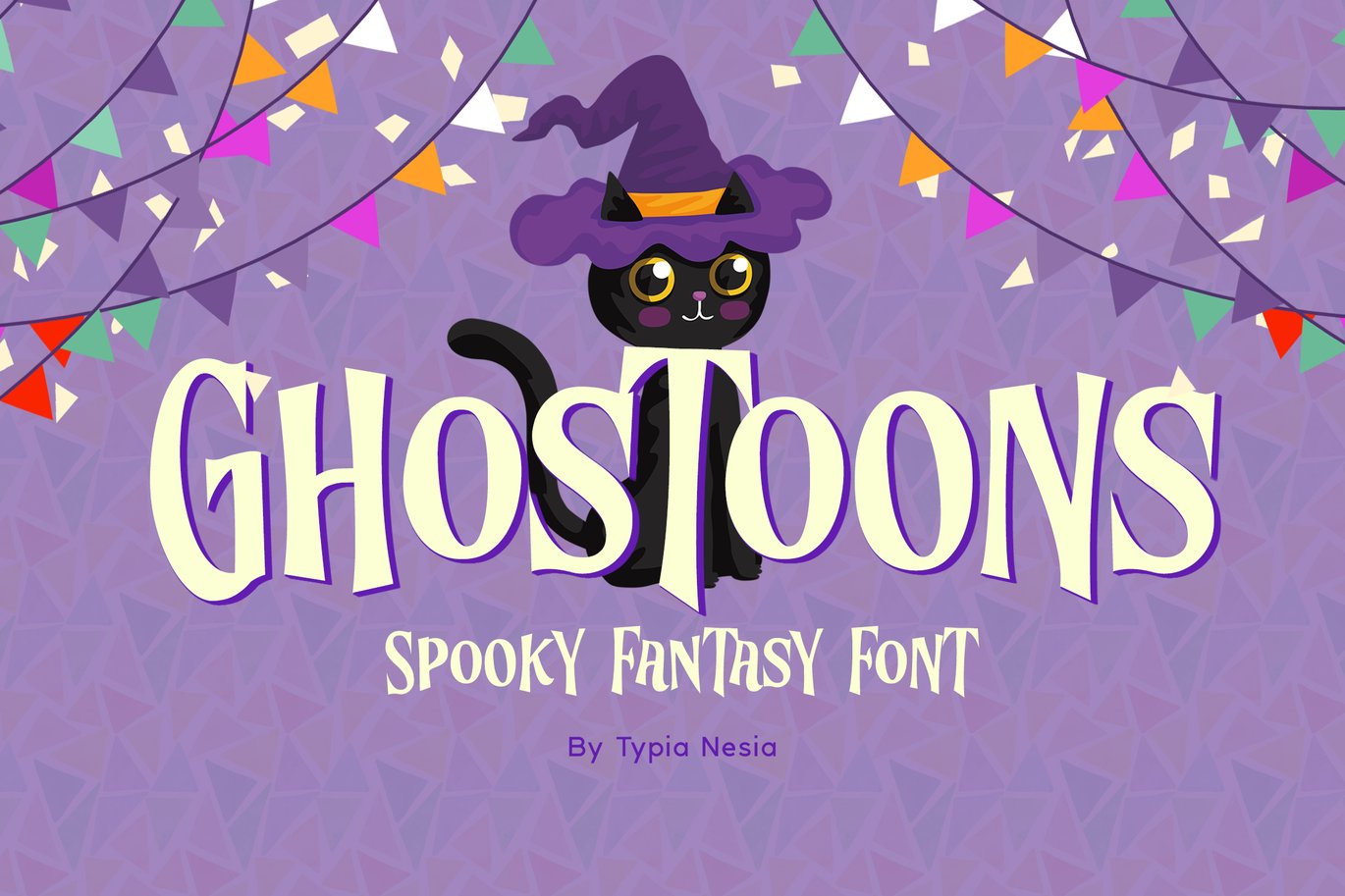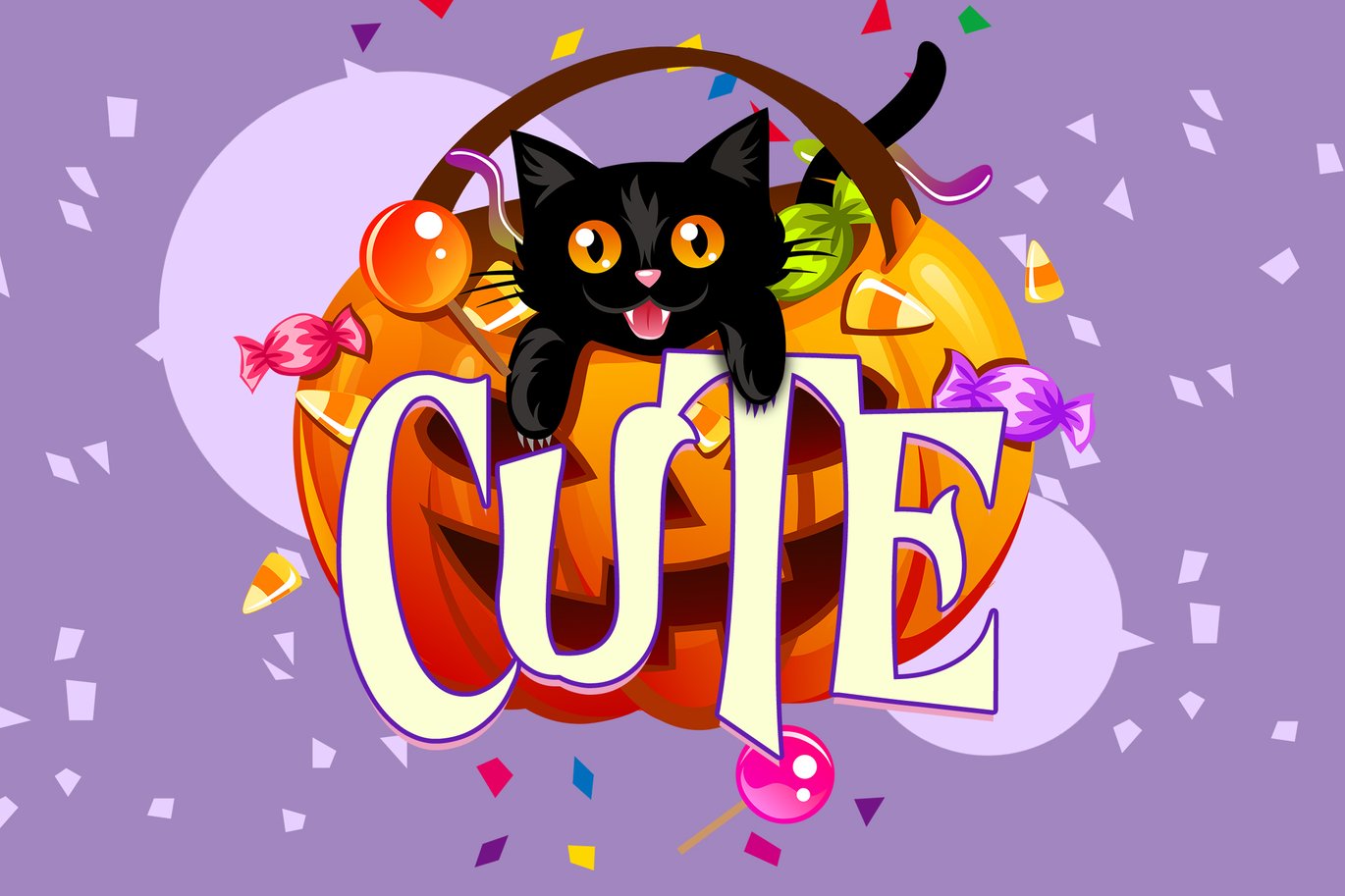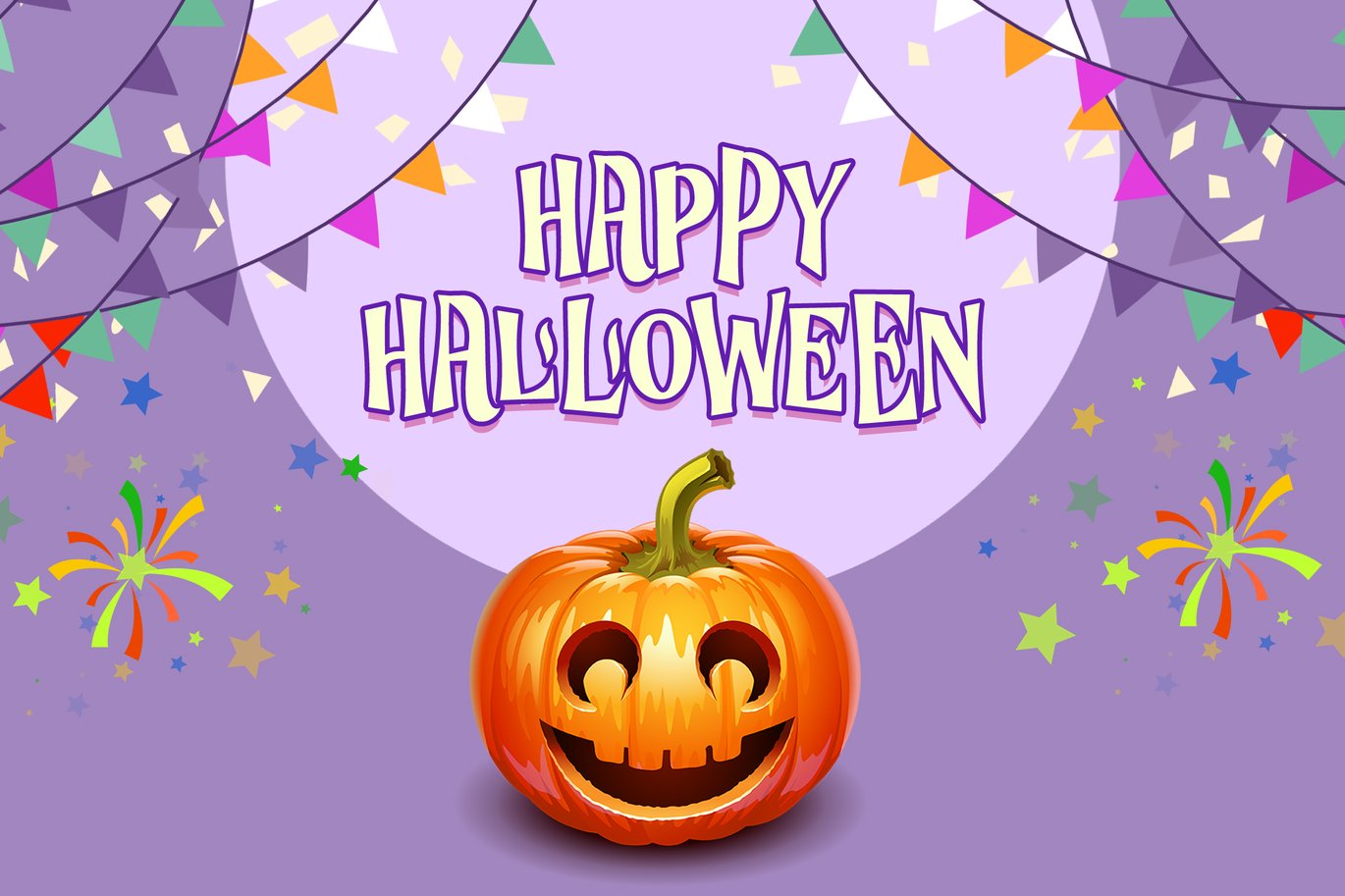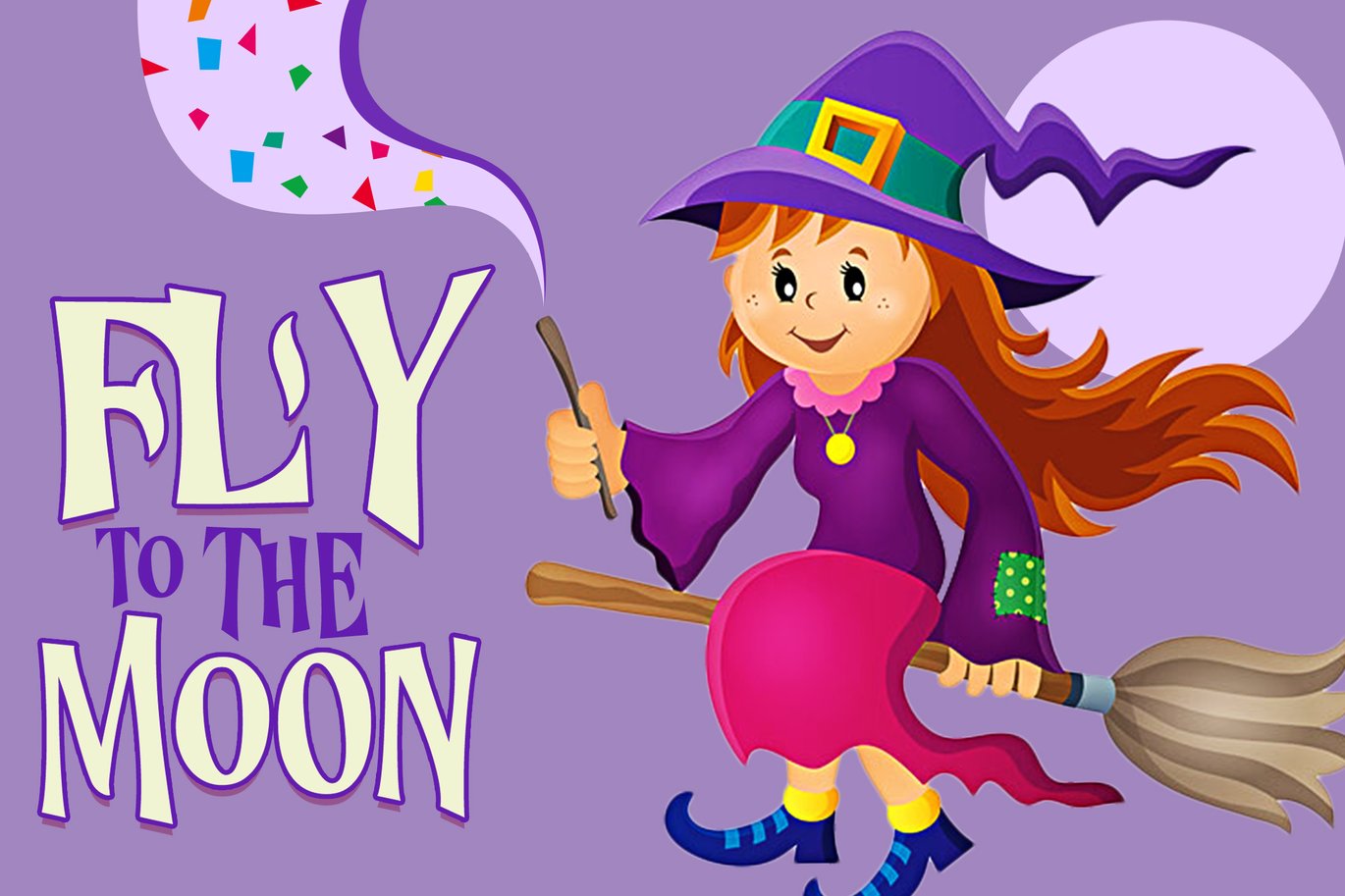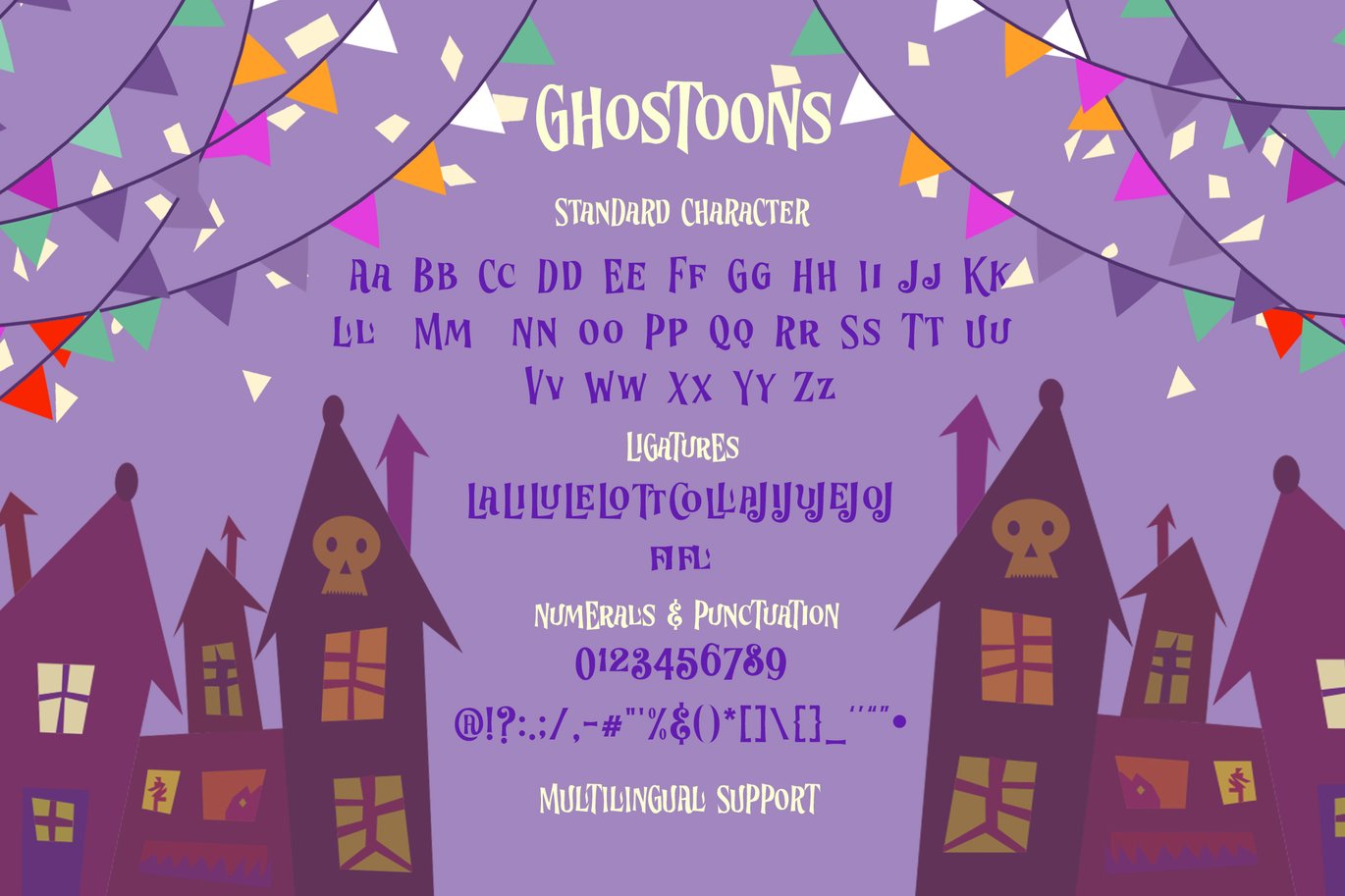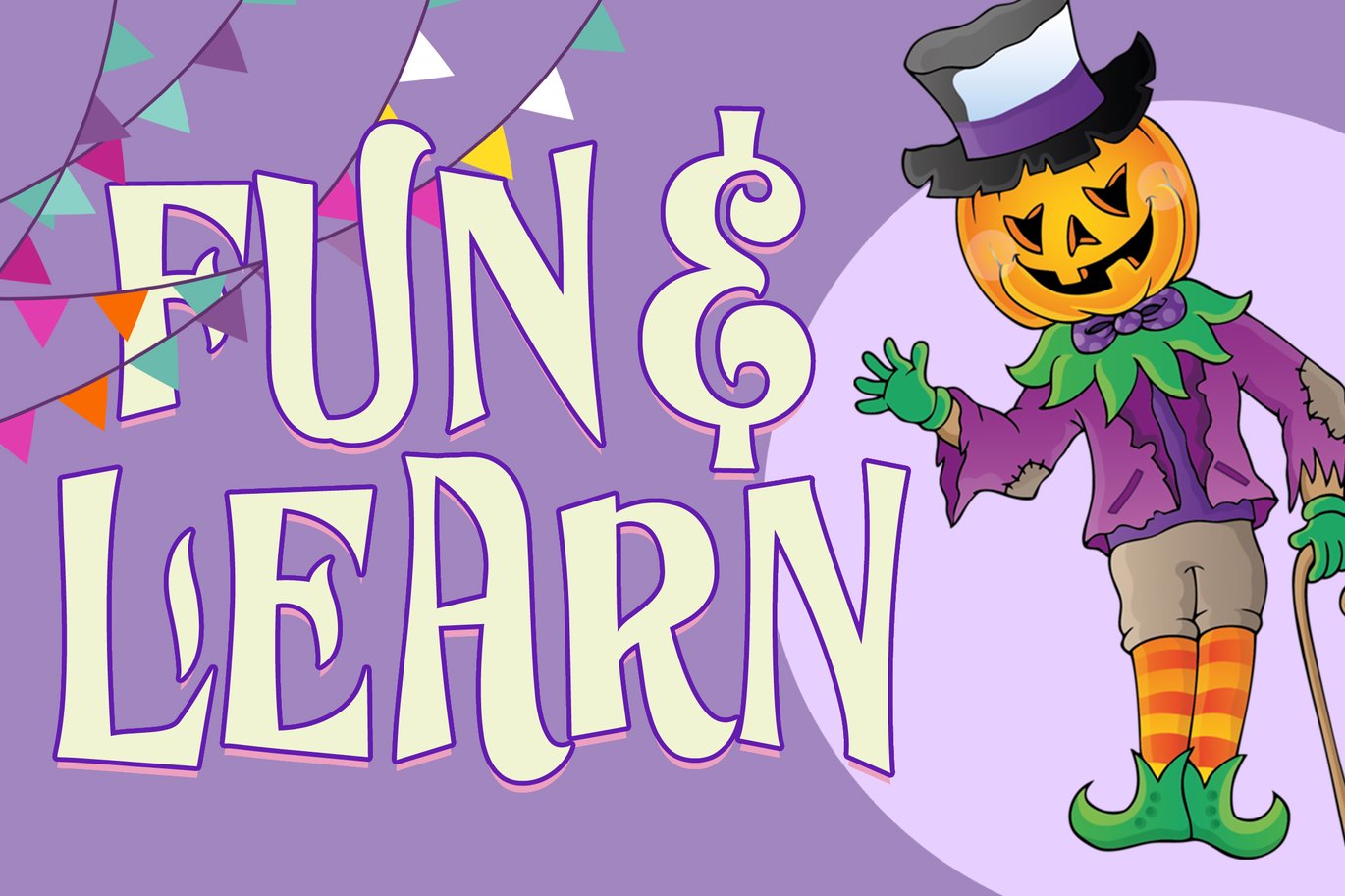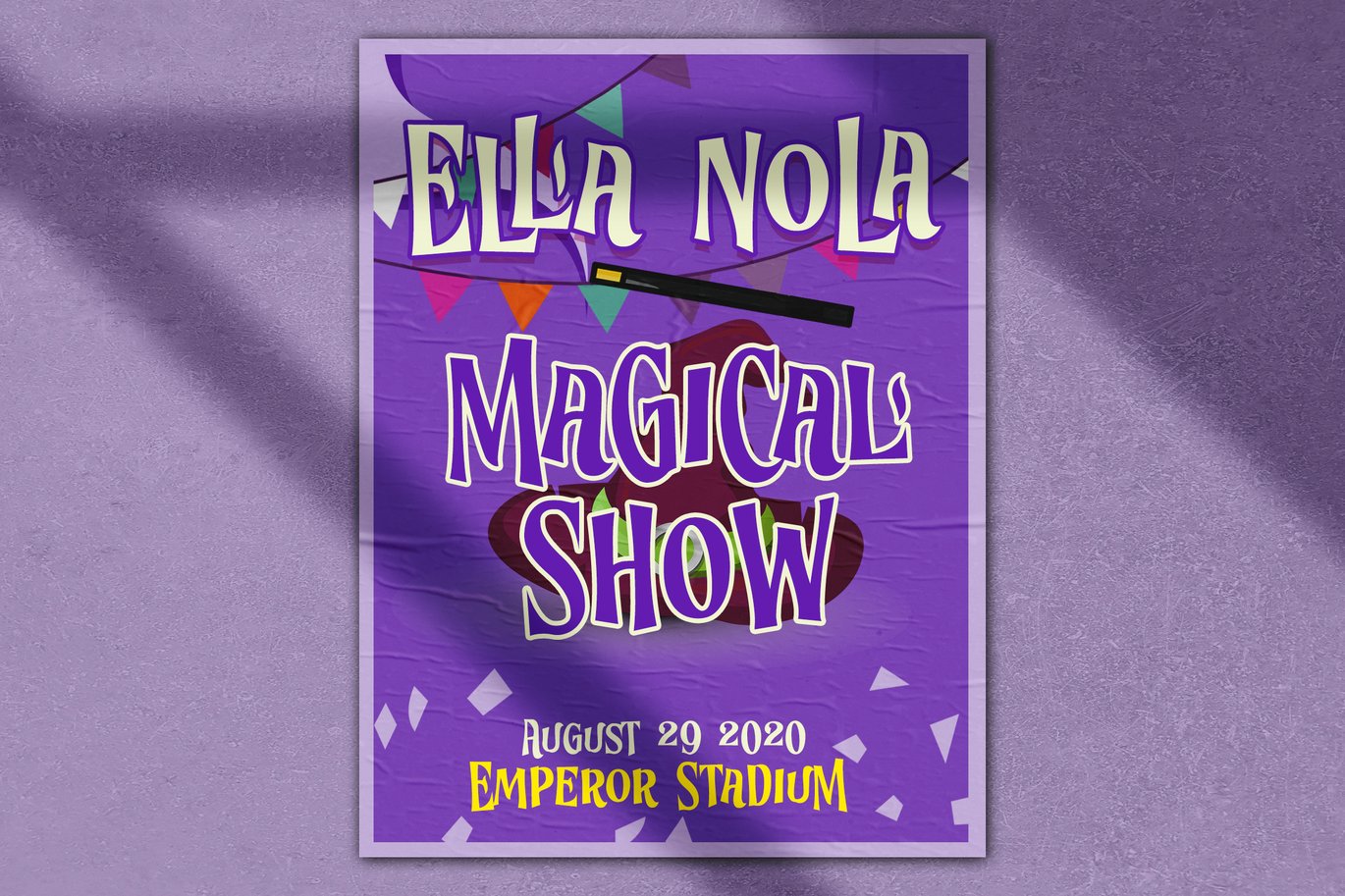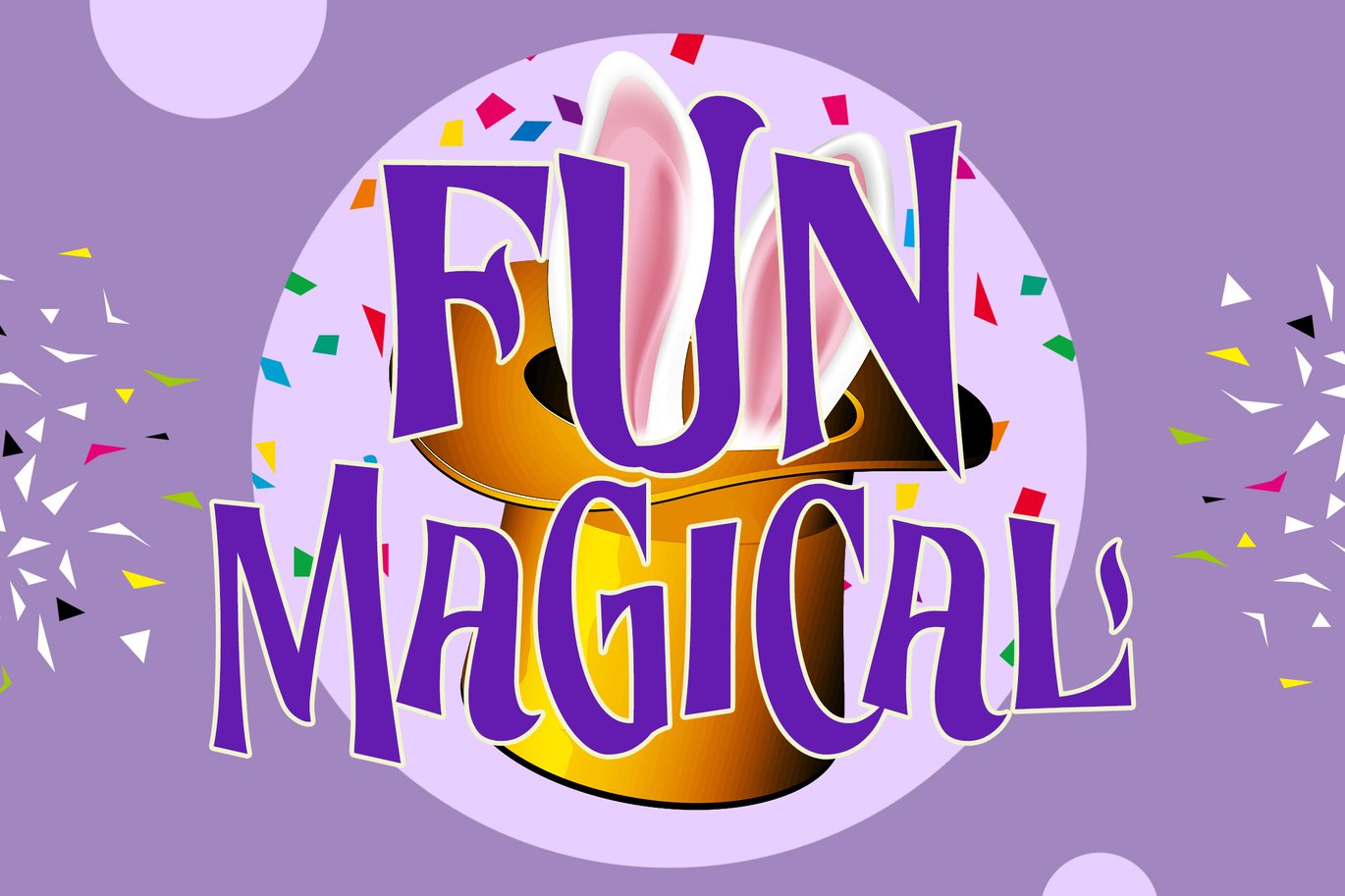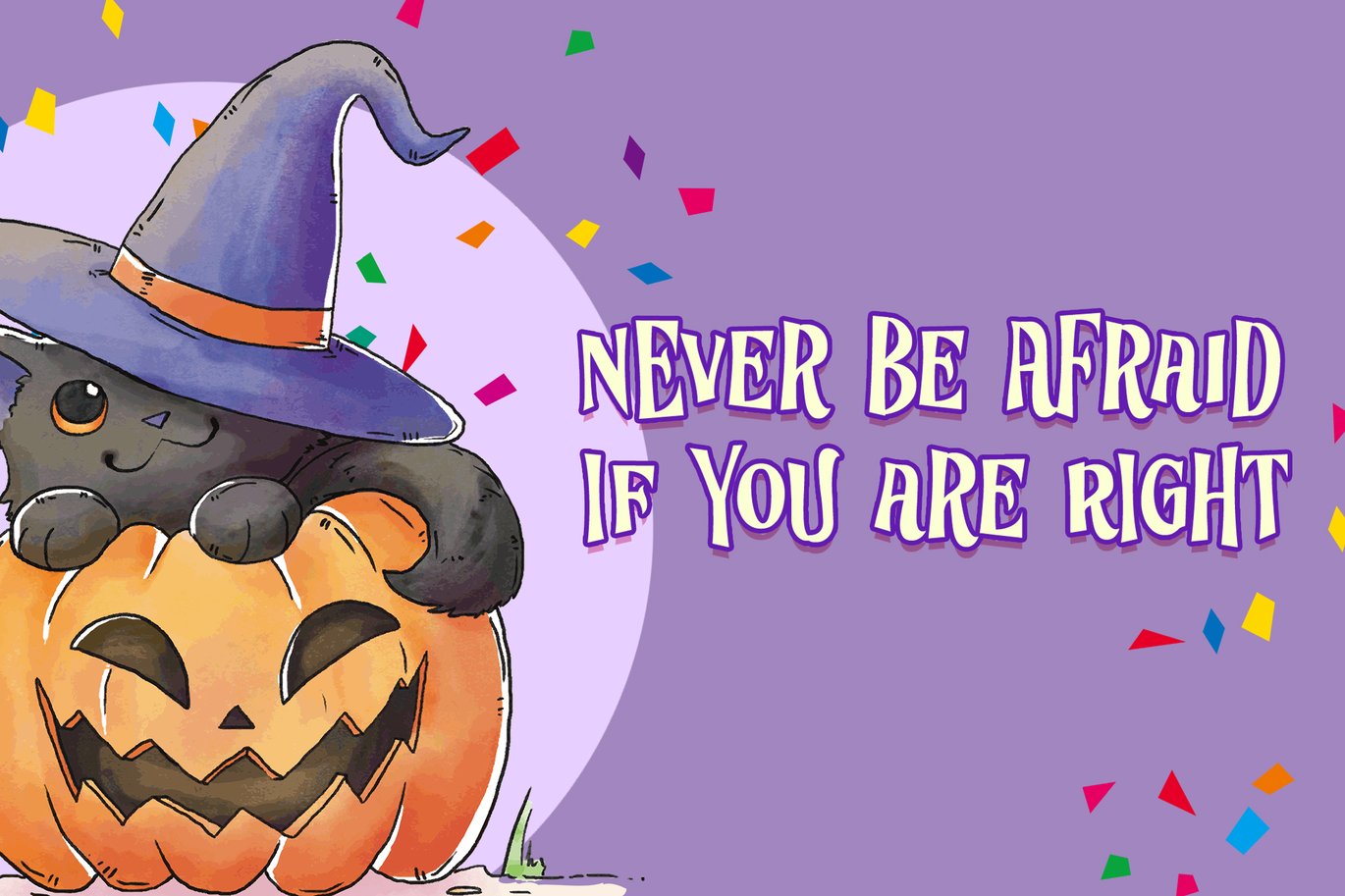
Ghostoons – Spooky Fantasy Font
Ghostoons – Spooky Fantasy Serif Font. a kiddy funny fancy cartoon Fun Playful Font.
Suitable for any design needs : logo, branding, modern advertising design, cartoon, animation, kid book, logos, poster quote, book / cover Title, editorial design, website / blog, card, custom mug, pillow, t-shirts, and any hand-lettered needs.